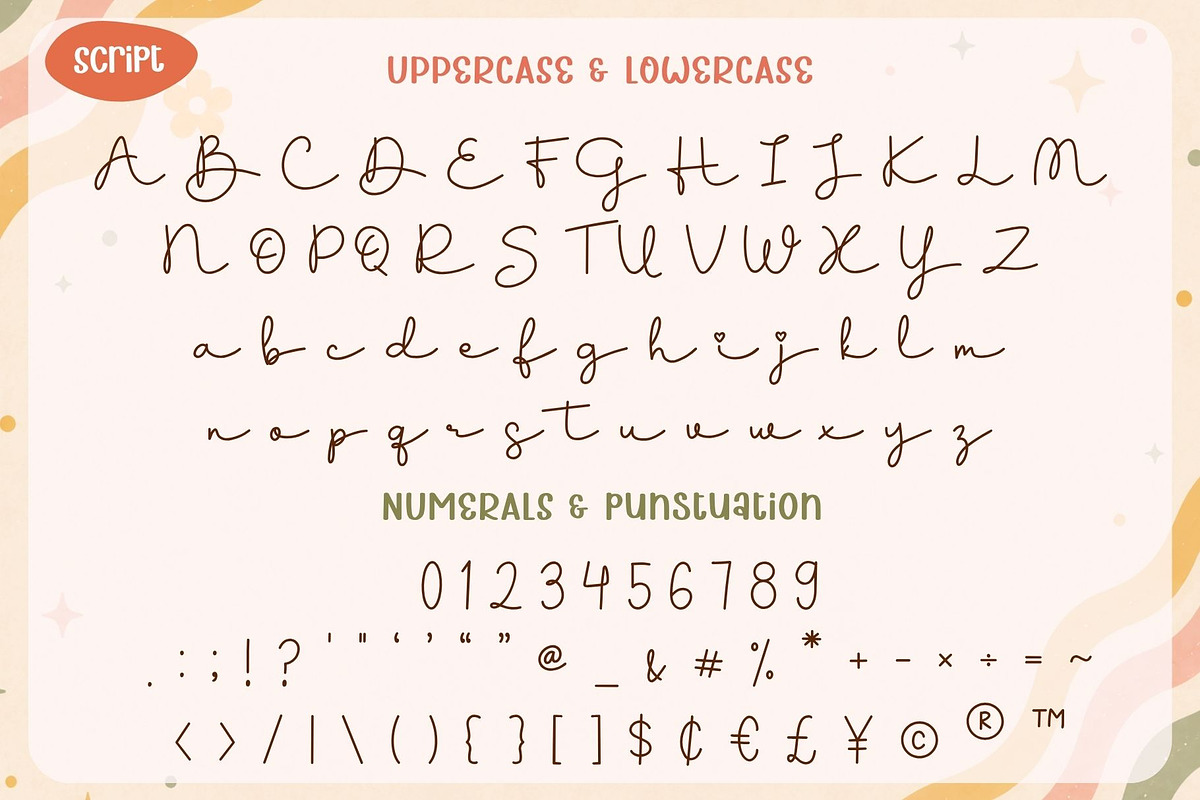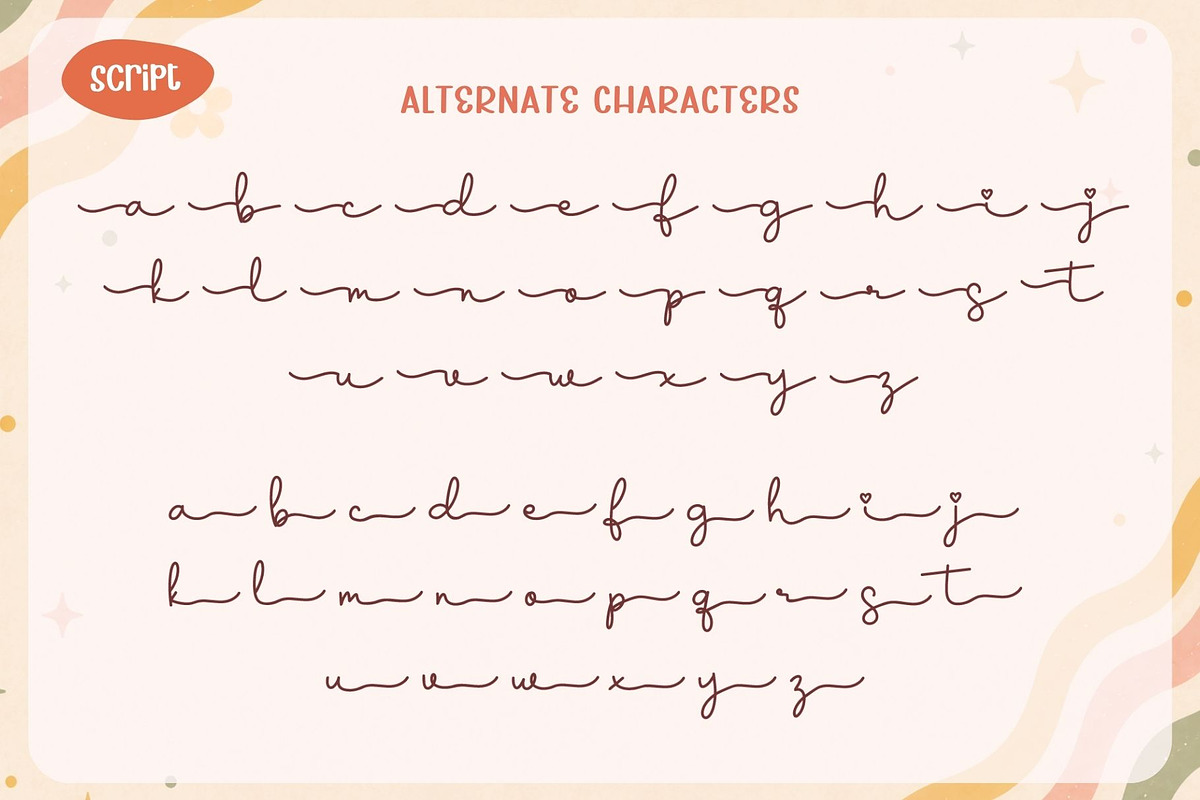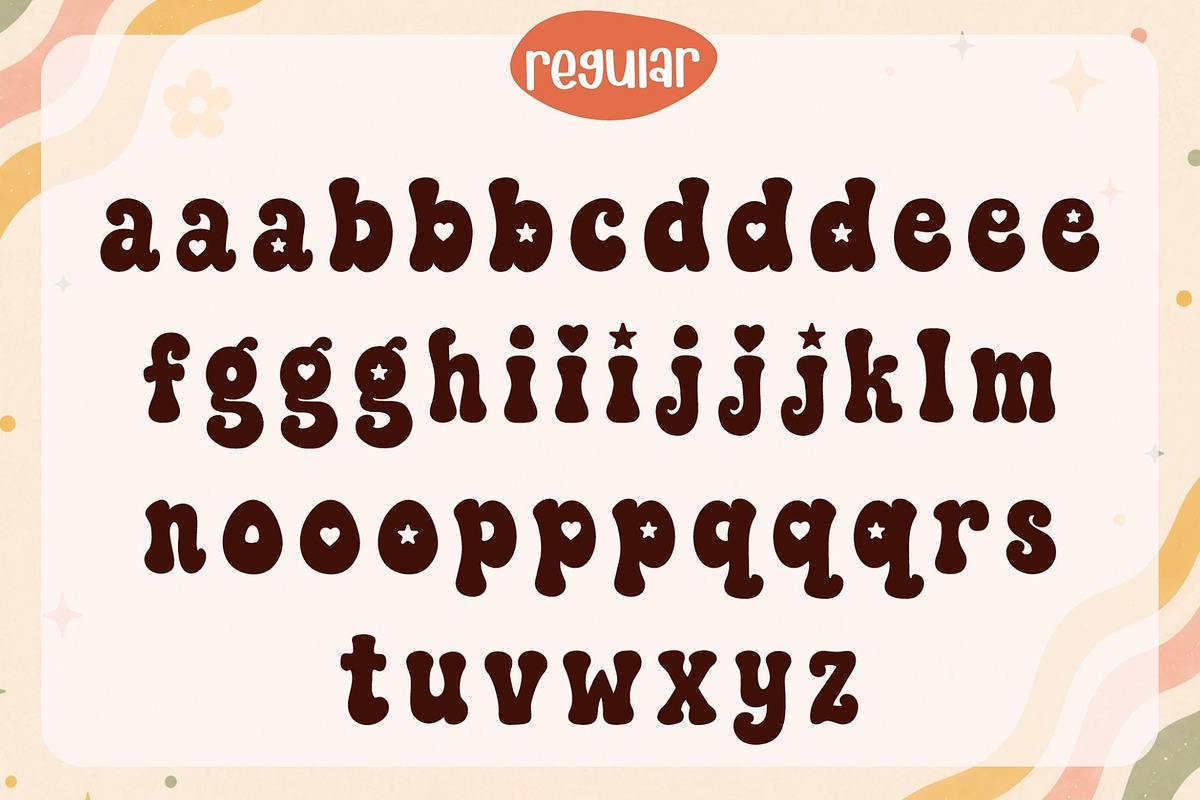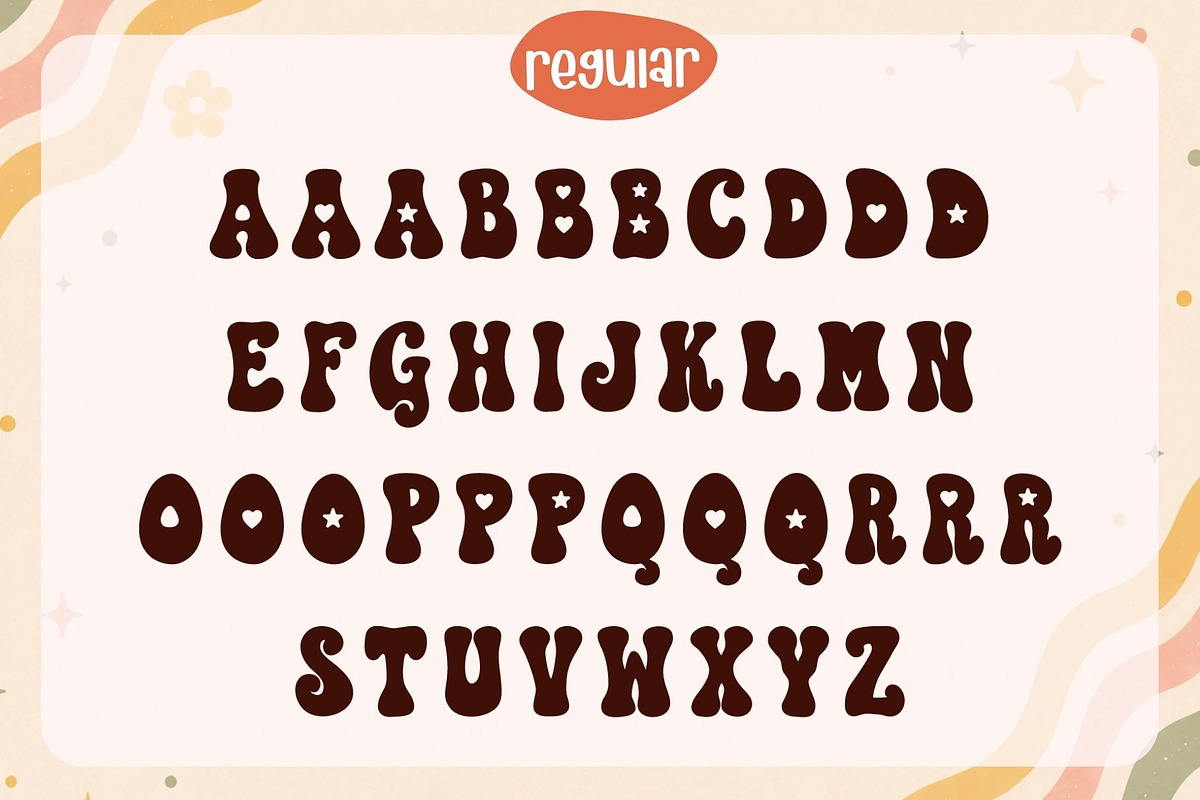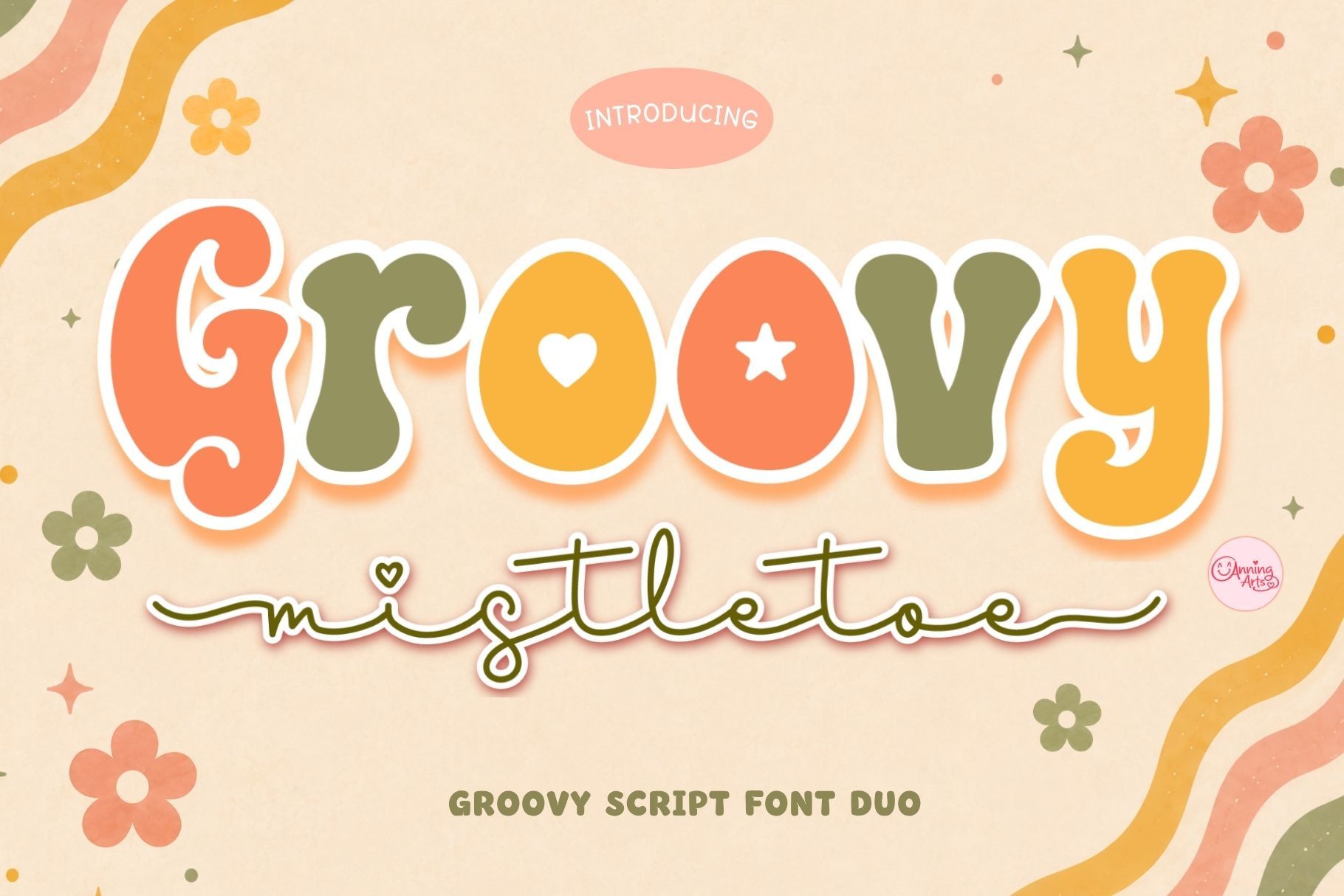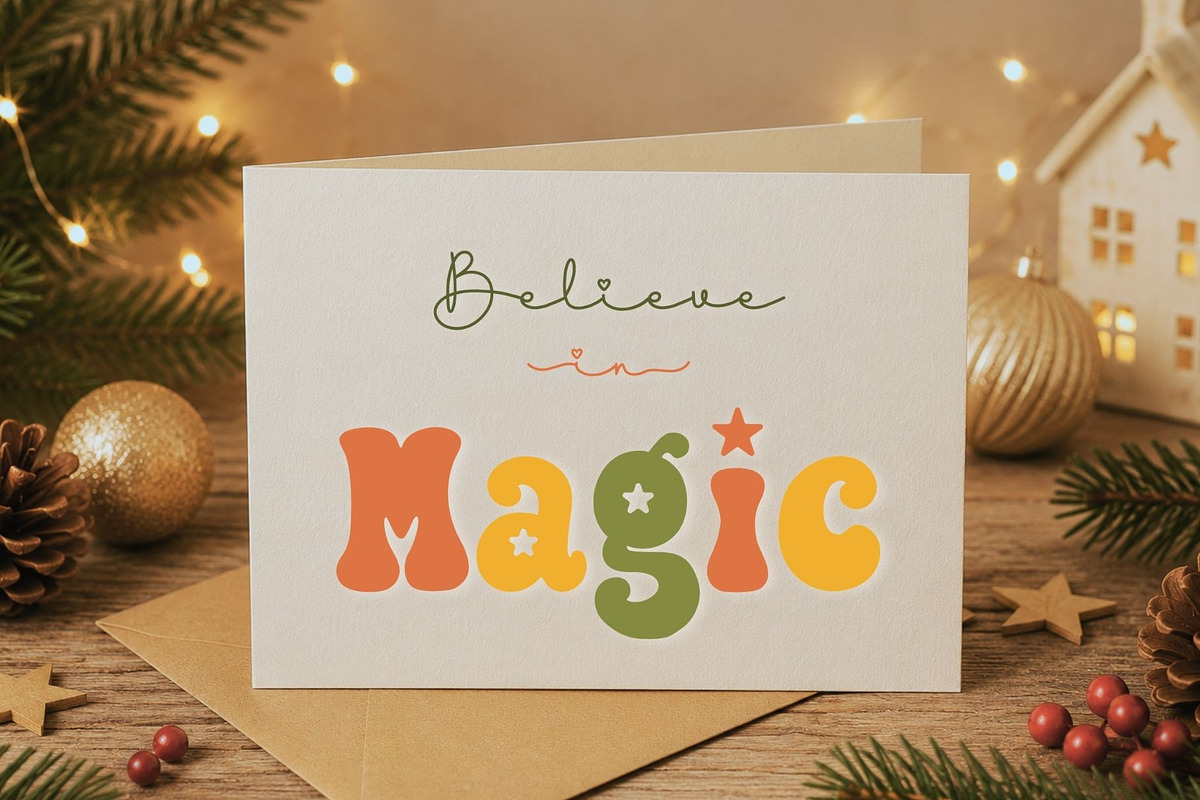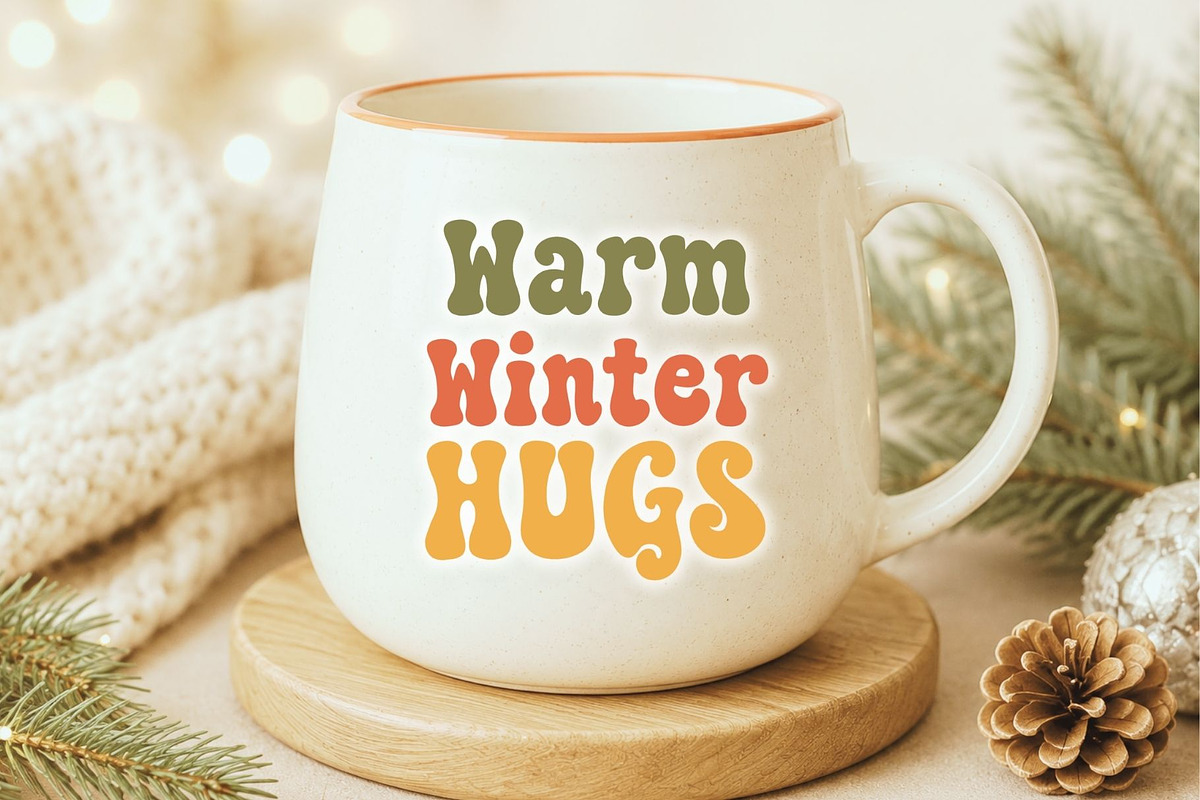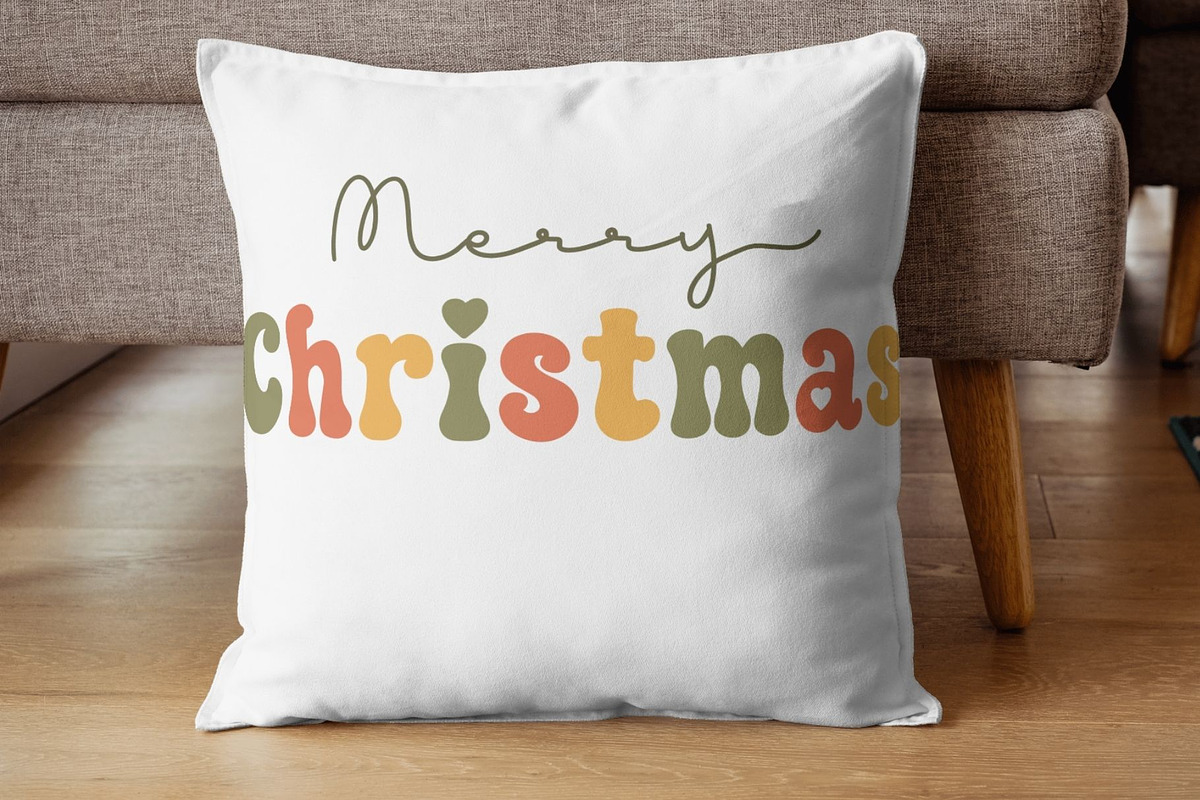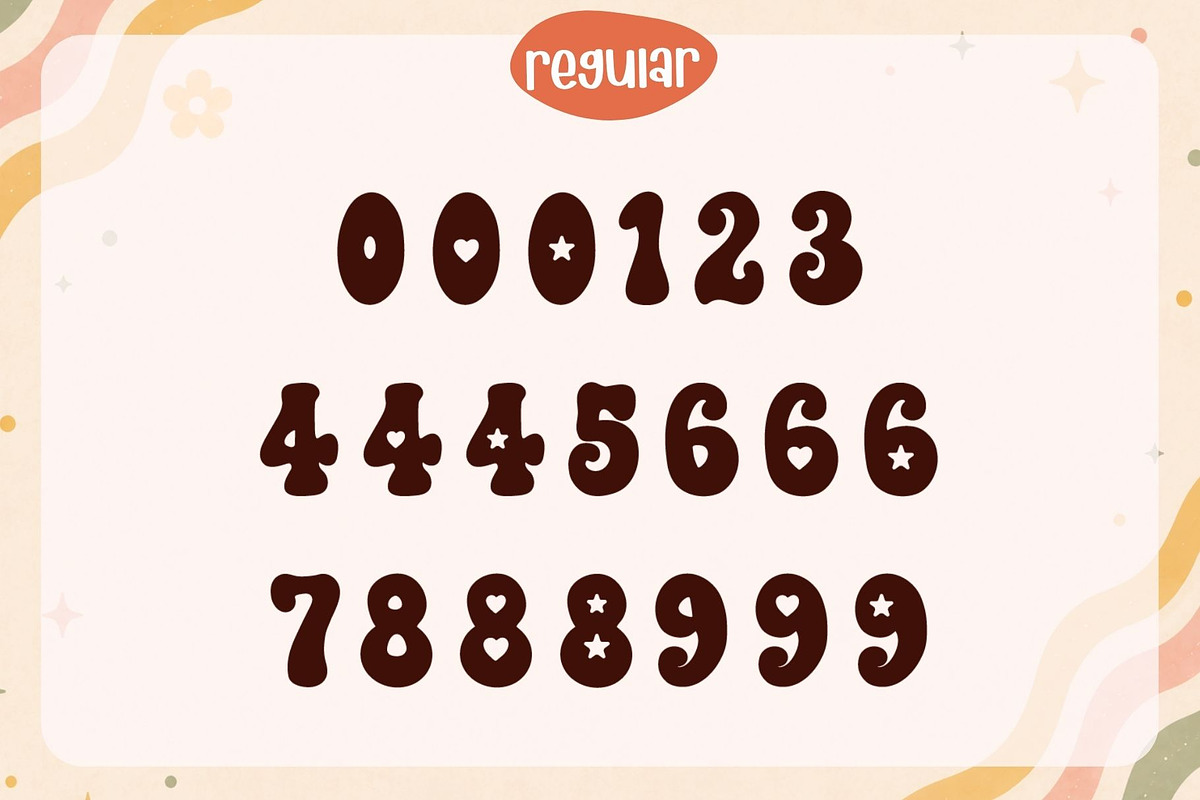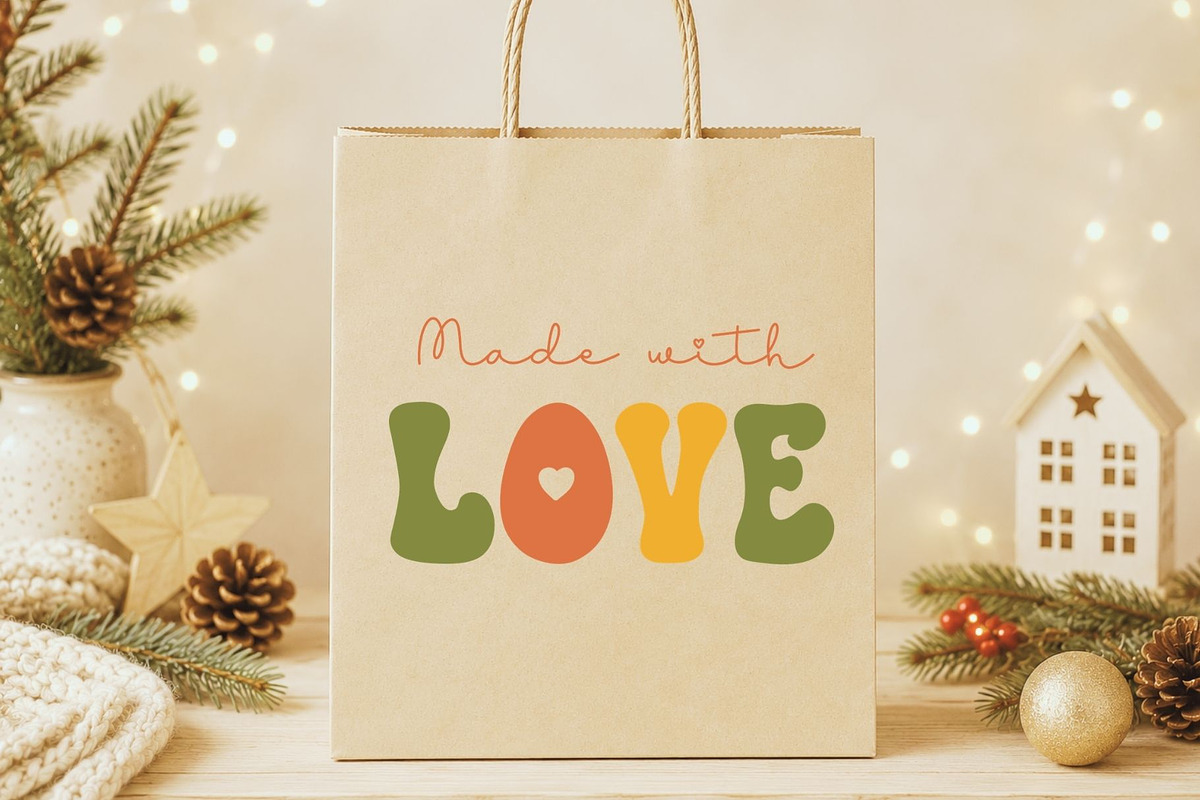
Groovy Mistletoe Font Duo
Groovy Mistletoe is a playful retro font duo combining a chunky vintage display font with a smooth handwritten script. Designed for branding, Christmas crafts, greeting cards, invitations, packaging, apparel, mugs, stickers, Cricut projects, and sublimation.